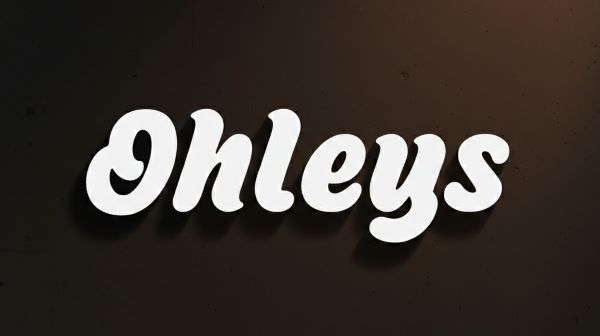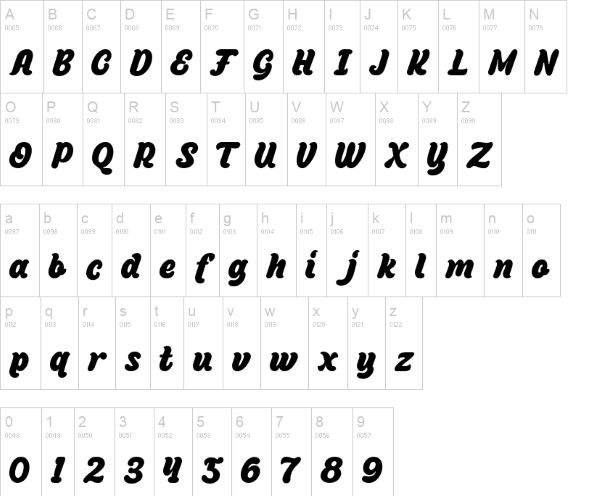
Ohleys Font
Ohleys Font is a bold display typeface that blends innovation with playful charm. Its rounded, friendly letterforms create a fresh and modern look while maintaining strong visual impact. Designed to stand out, Ohleys brings creativity, warmth, and confidence to logos, branding, posters, and eye-catching design projects.
➤ Font Name: Ohleys
➤ Designer: Angin Studio
➤ Style: Display Bold